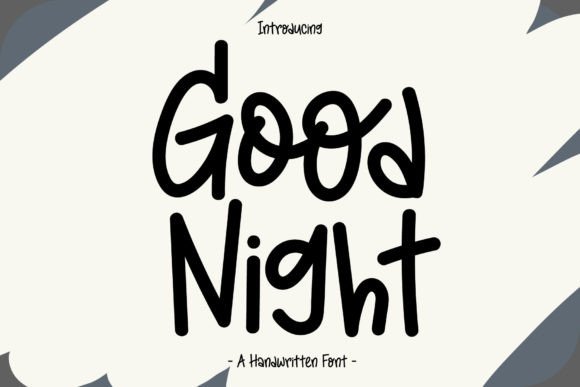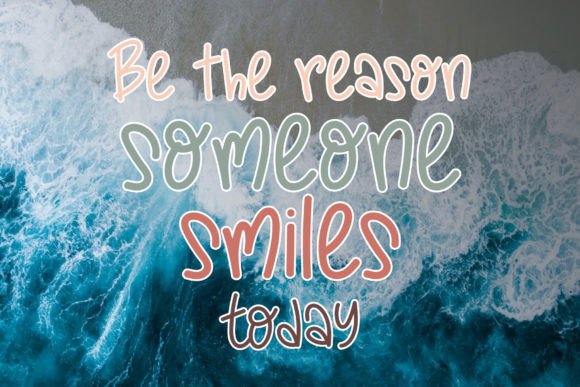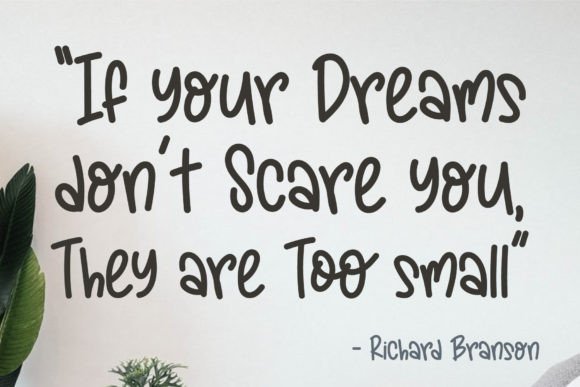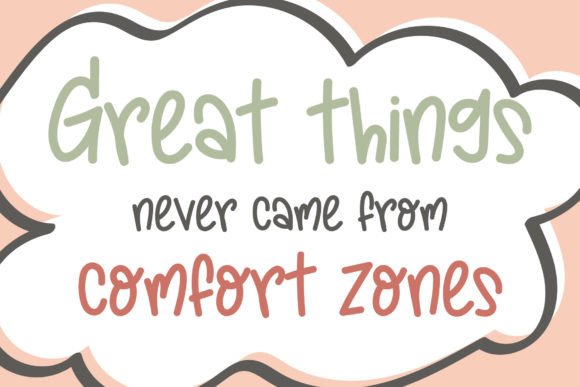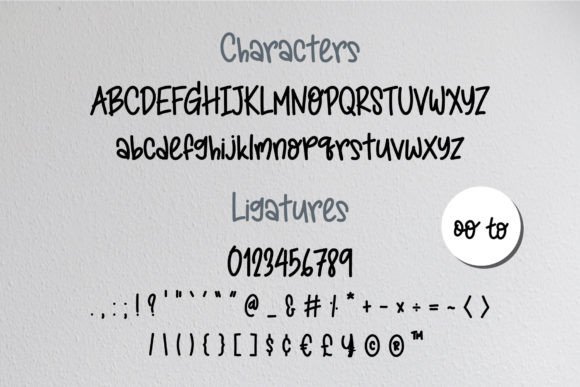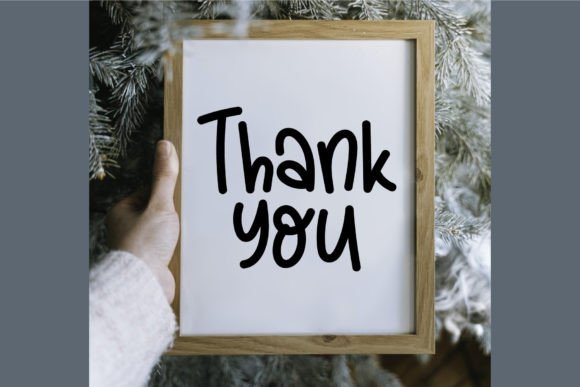
Good Night Font
Good Night is a delightful handwritten font that effortlessly blends simplicity with joy. Its casual charm lends it a wonderfully down-to-earth quality, ensuring readability and, ultimately, incredible versatility. This font stands out in any context, whether placed on busy backgrounds or used as a standalone headline, making it a versatile choice for a wide range of design applications.
The simplicity of Good Night is a key feature that contributes to its approachable and friendly demeanor. The handwritten style adds a personal touch, making it feel warm and inviting. This font is not just a visual element; it’s an expression of casual elegance that adapts seamlessly to diverse design contexts.
Good Night’s readability ensures that your message is conveyed clearly, whether it’s part of a busy design or taking center stage as a headline. Its clean lines and joyful demeanor make it an excellent choice for projects that require a balance between playfulness and clarity.
The versatility of Good Night shines through in its adaptability to various backgrounds and design scenarios. Whether you’re working on a vibrant and lively composition or a minimalist layout, this font effortlessly integrates, enhancing the overall visual appeal.
As a standalone headline, Good Night commands attention with its friendly and approachable style. It’s a font that doesn’t just convey words; it communicates a mood—simple, joyful, and full of positivity. Imagine it on posters, social media graphics, or any design where a touch of casual charm is needed.
In summary, Good Night is more than just a font; it’s a design asset that brings simplicity, joy, and versatility to your projects. Let it be the cheerful companion that enhances your visual communication, making every message feel approachable and delightful.